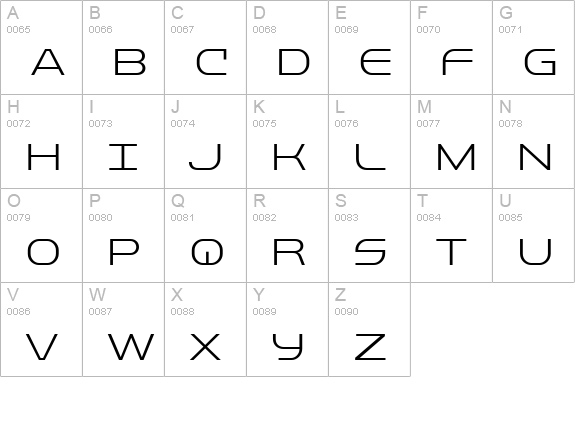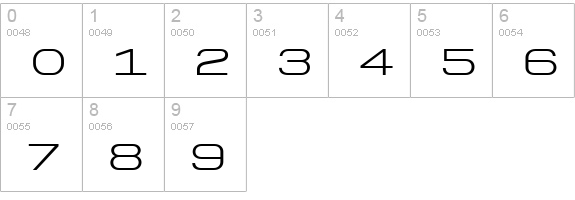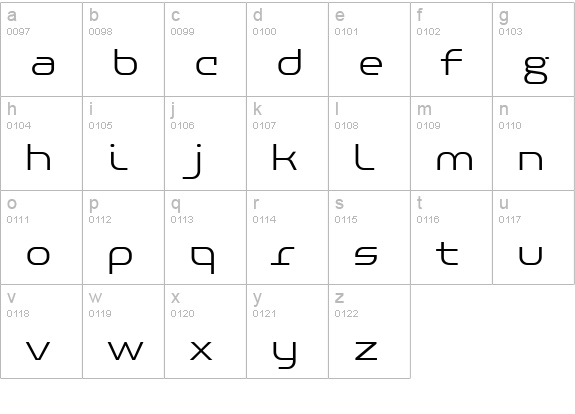
PFBaselinePro-Light is a refined, elegant variant in the PFBaselinePro typeface family \xE2\x80\x94 well suited to elegant body text, refined sub-headings, and luxury branding.
PFBaselinePro-Light is a stunning and elegant font that exudes sophistication and modernity. With its sleek and minimalist design, this font is perfect for a wide range of design projects, from branding to editorial layouts. The light weight of PFBaselinePro-Light gives a delicate and airy feel to any text, making it ideal for conveying a sense of elegance and finesse. Its clean lines and refined curves add a touch of class to any design, ensuring a polished and professional look. What makes PFBaselinePro-Light even more appealing is that it is available for free download at FontsMarket.com. This means that you can easily access this beautiful font and use it in your projects without any cost. Don't miss out on this fantastic opportunity to elevate your designs with the timeless beauty of PFBaselinePro-Light.